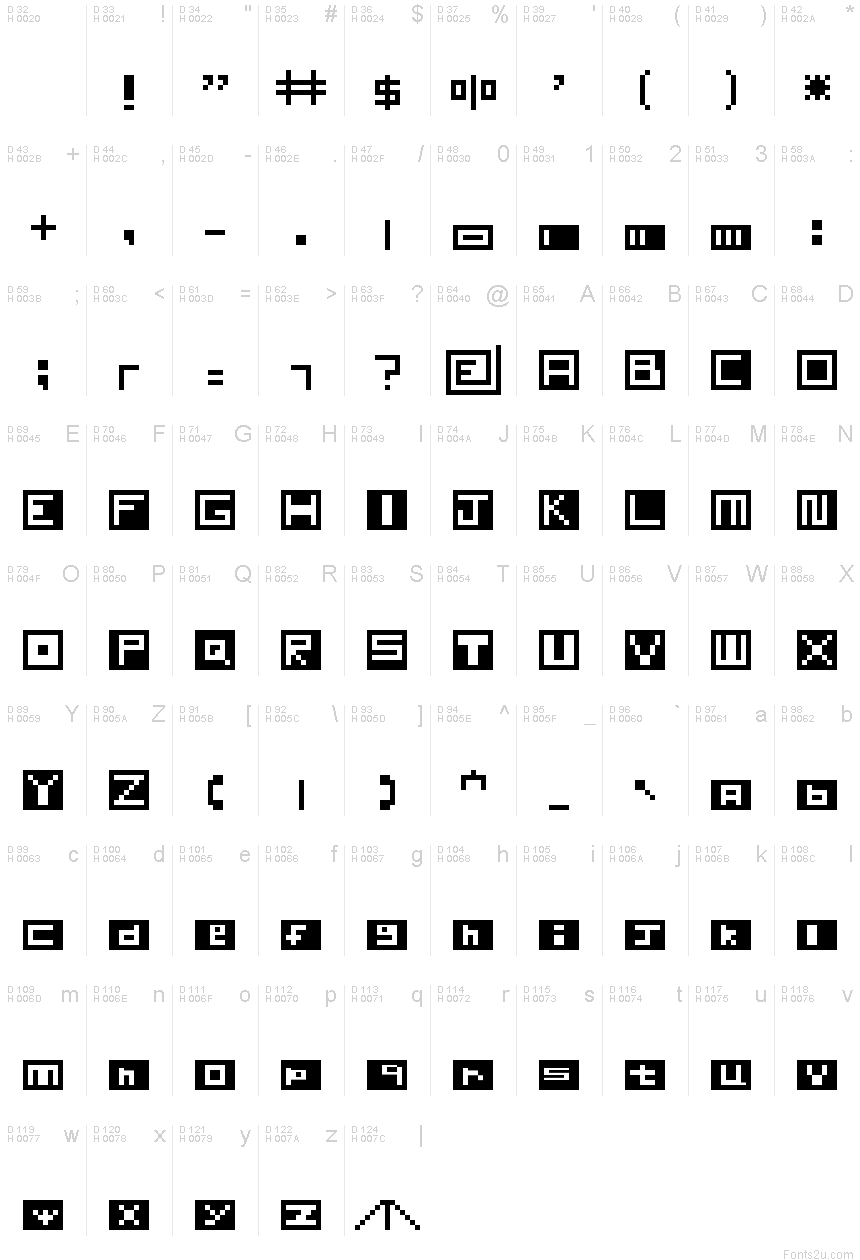
insider Regular
Hello everybody. This is my font from FONTSTRUCT. It creates fonts. This font in particular has the letters inside a block. Symbols, however, sre normal and a bit off-balanced